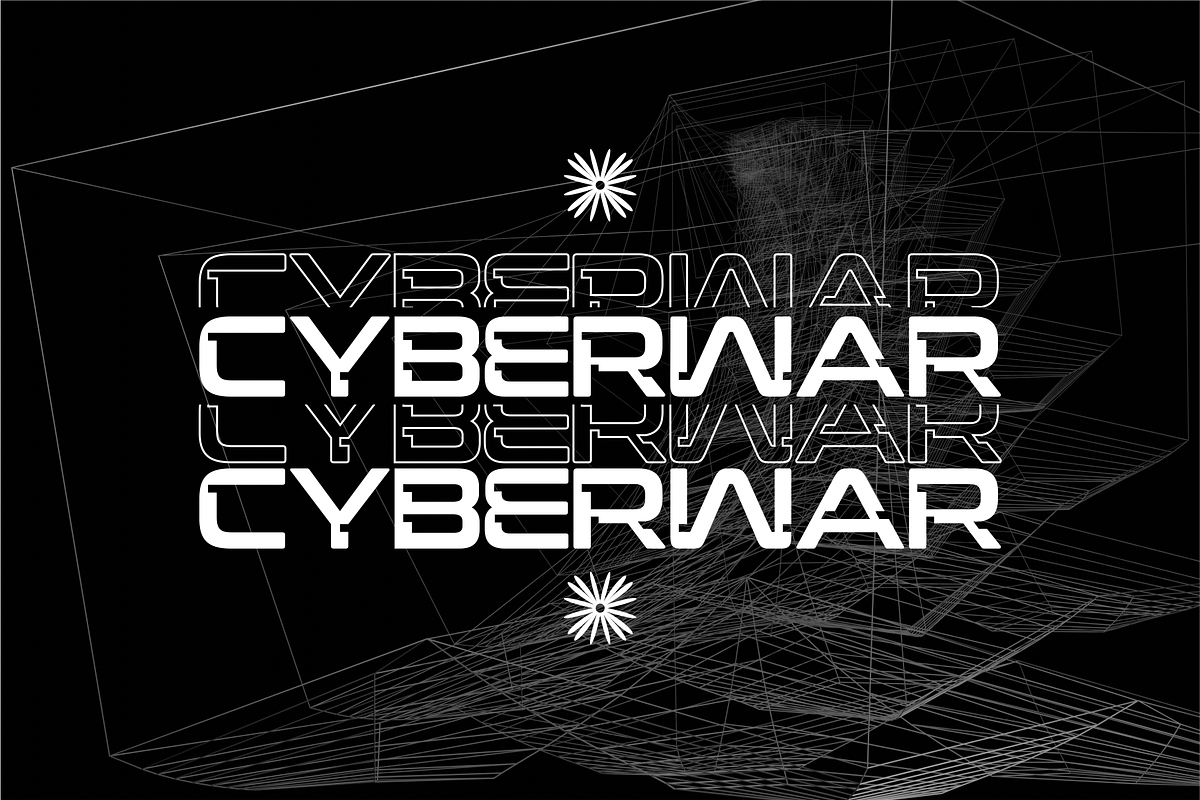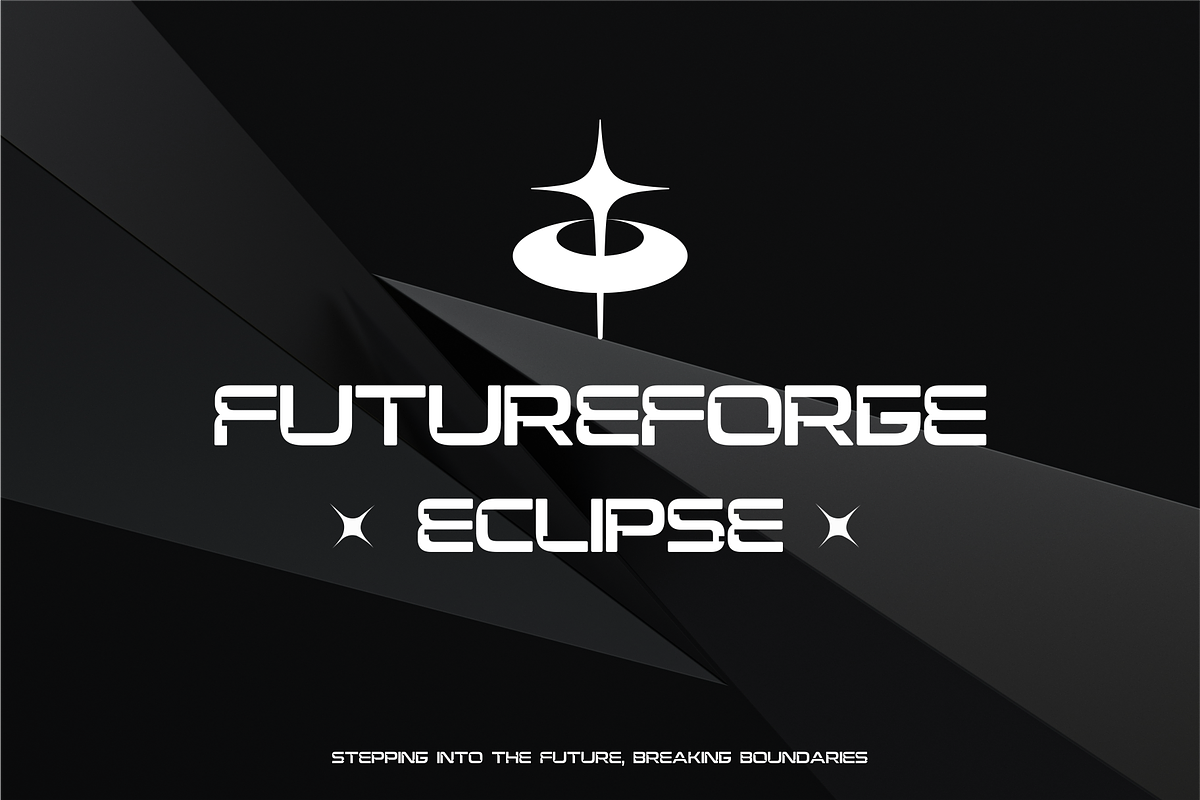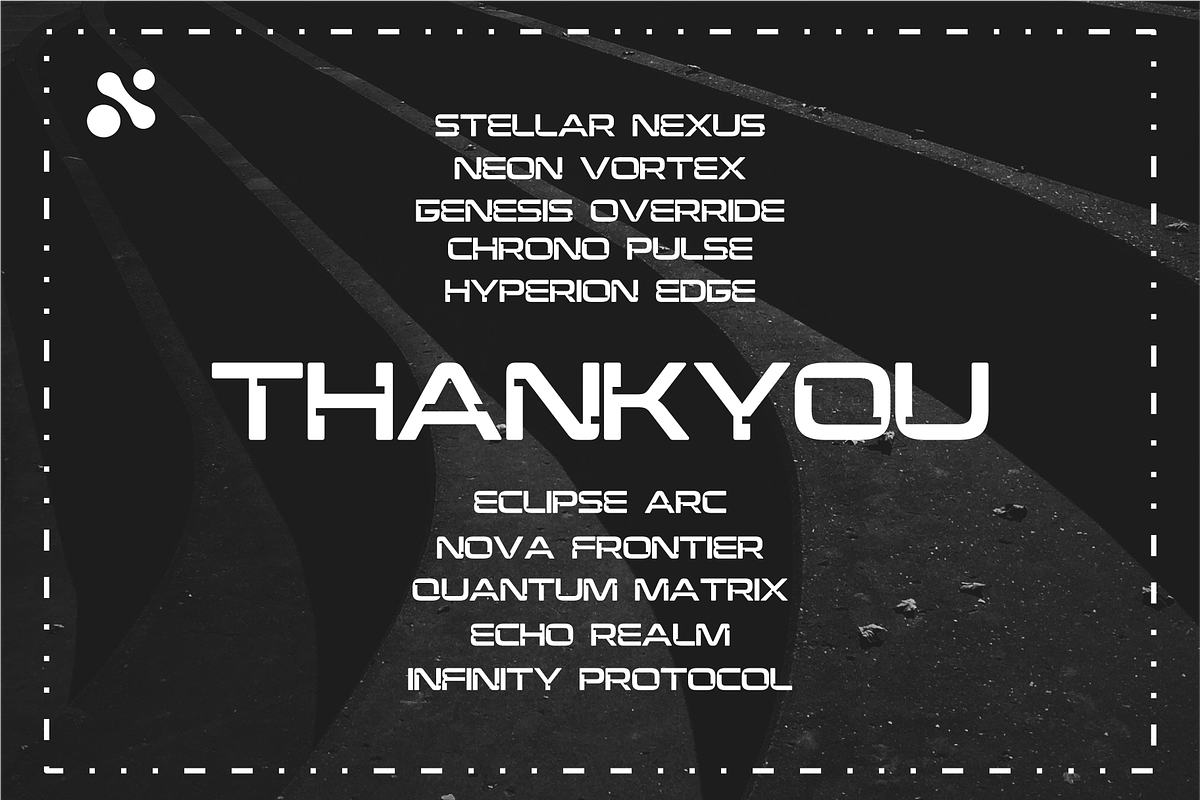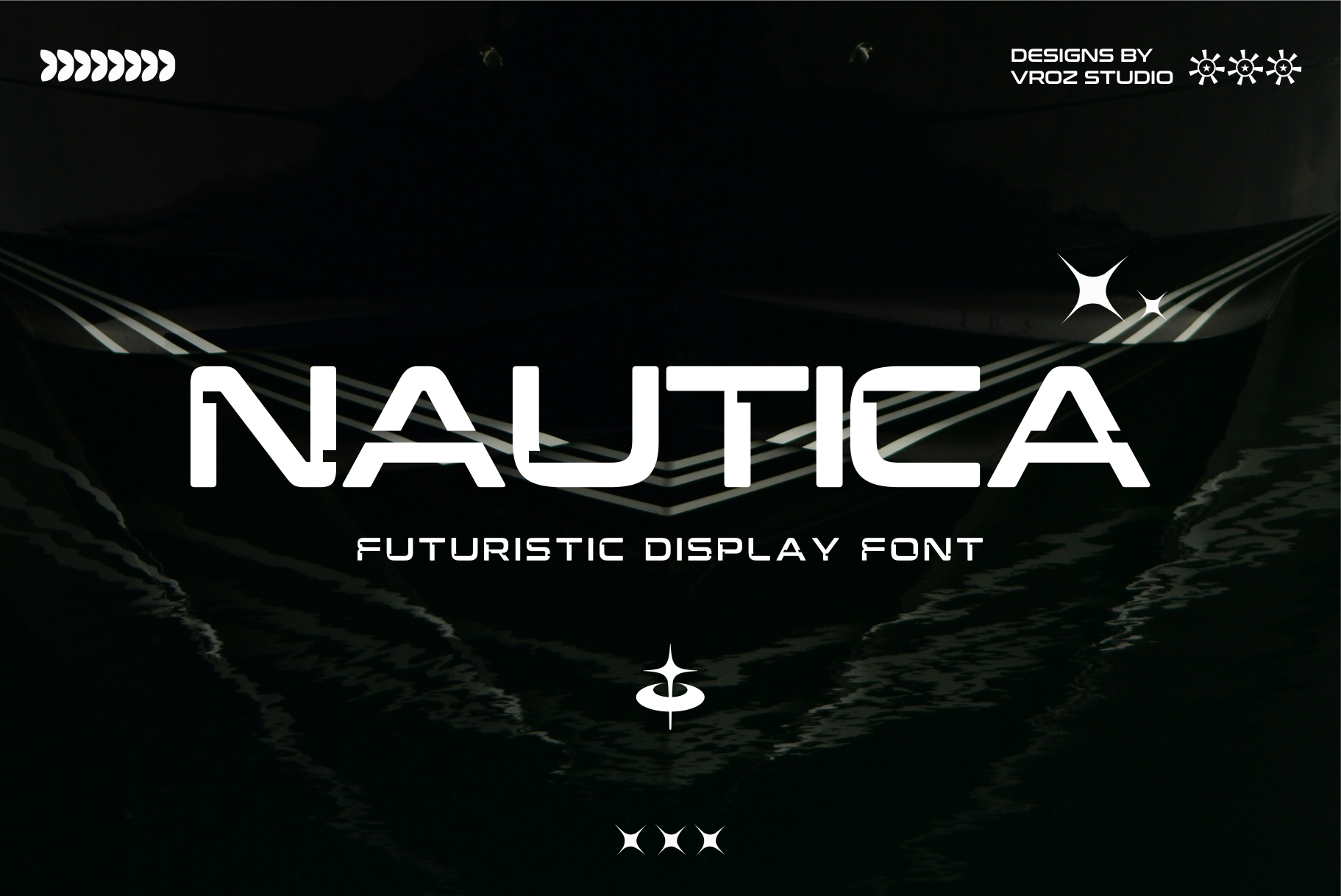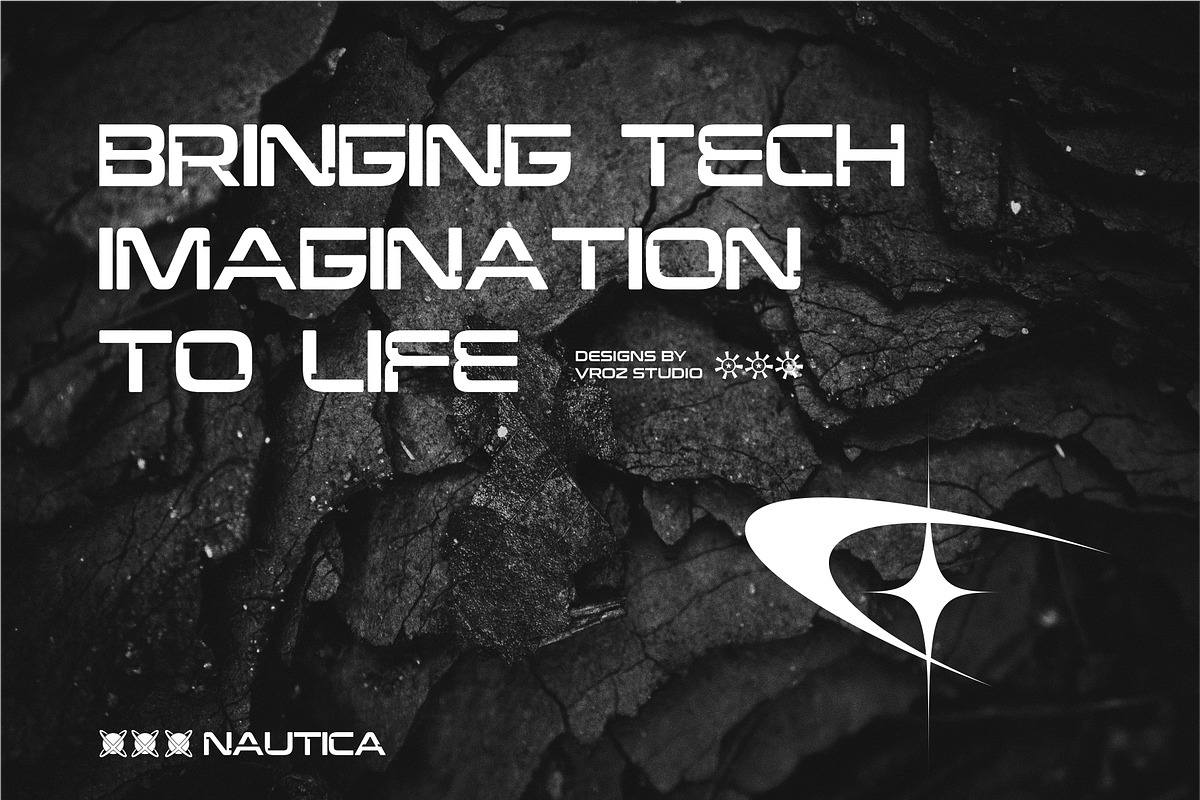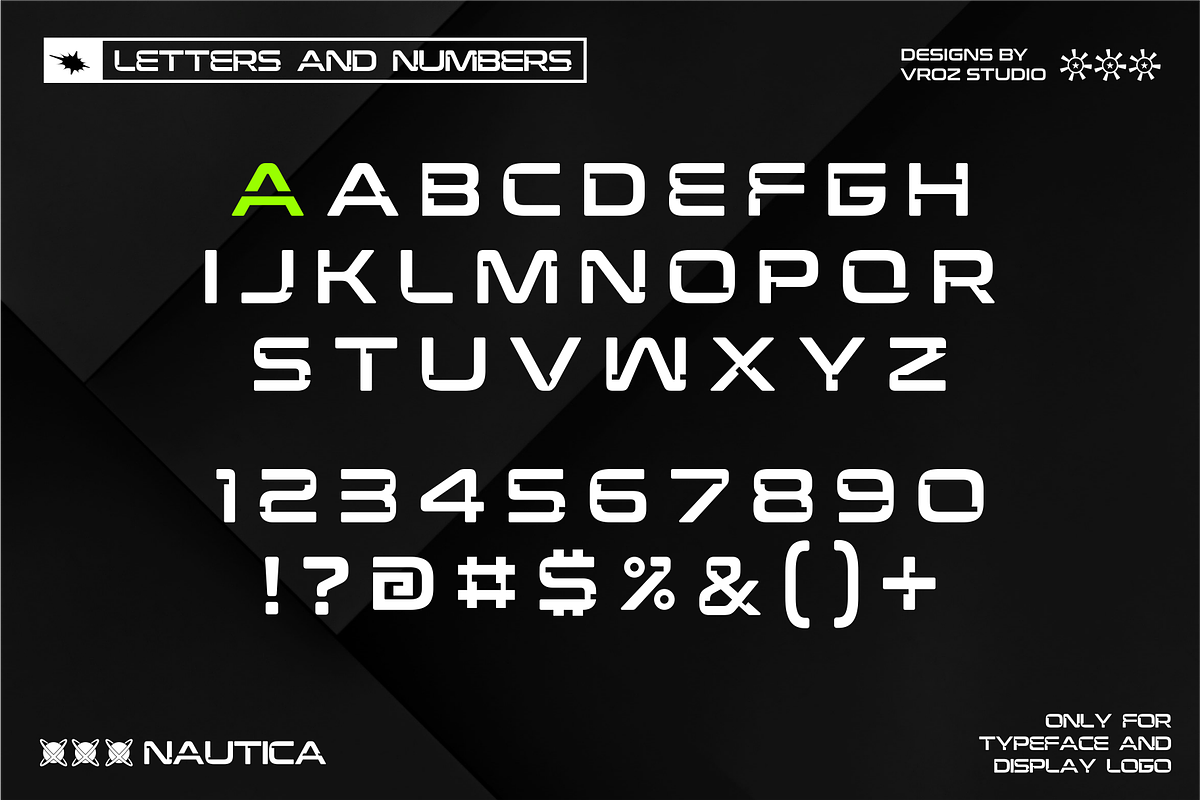
NAUTICA - Futuristic display Font
NAUTICA is a futuristic display font with a sleek, cutting-edge design. Featuring sharp geometric corners, it's perfect for a wide range of projects, including fashion, magazines, logos, branding, title quotes, blog headers, posters, advertisements, postcards, books, websites, and more.